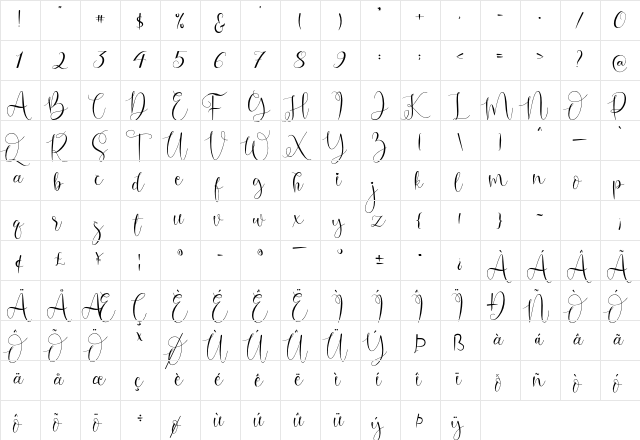
Dear Natasha Regular
Design Context for Dear Natasha Typeface
Dear Natasha is a composed and adaptable typeface that performs quietly and consistently across a wide range of design contexts.